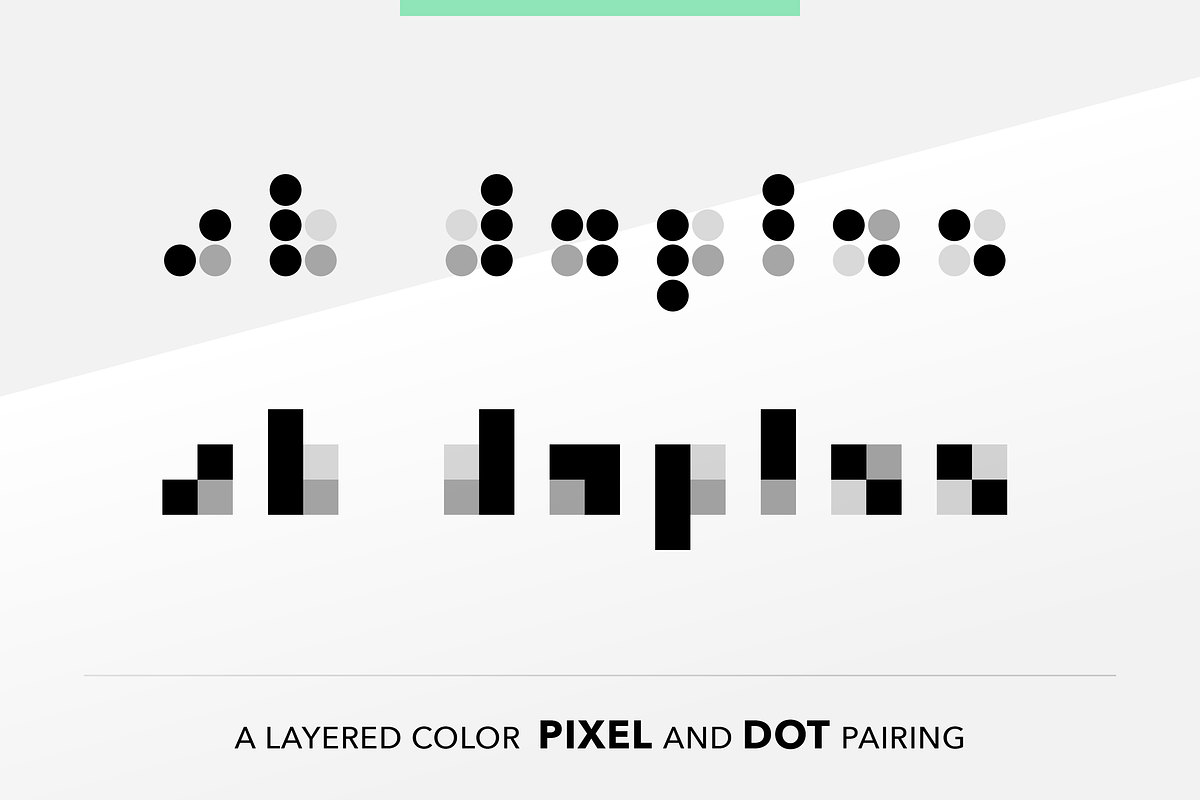
Please note, to use this font for commercial purposes, you must purchase the full version. Duplex is a vibrant and creative color pixel font that brings a retro, digital aesthetic to your designs. With its pixelated, multi-colored letterforms, this font is perfect for video games, digital art, logos, and projects that need a bold, tech-inspired look. Whether you're designing for a gaming brand, a retro-themed event, or a modern digital project, Duplex adds a unique and eye-catching touch to your work. Test it out and enjoy free download access for personal use. Experience the fun, colorful style of Duplex - Color Pixel Font Free Download before purchasing the commercial license. Add a dynamic, pixelated flair to your designs with Duplex.